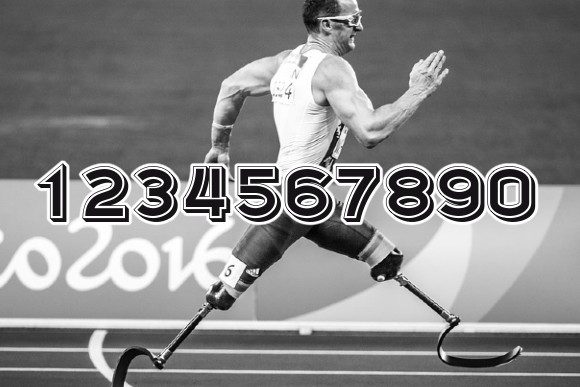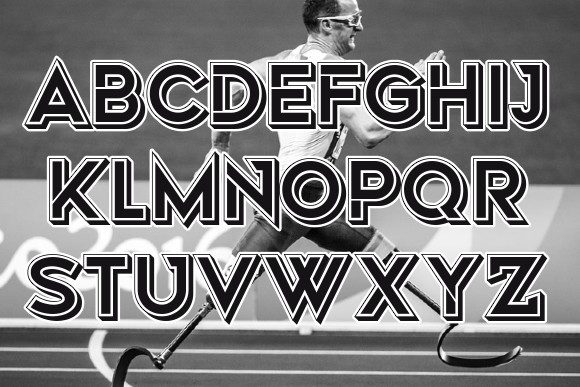
Introduction to Sakat Font
Have you ever found yourself in a creative flow, typing away at your computer with a burst of inspiration, only to realize that the perfect font to match your vision is nowhere to be found? This is a familiar struggle for many designers, and it’s exactly why discovering a valuable design resource like the Sakat Font can be a game-changer.
The Sakat Font is a stunning display font that exudes power and speed, making it an ideal choice for designs that require a bold and dynamic touch. With its cool, thick lettering, this font is sure to grab attention and elevate your creative project to the next level.
Key Features of Sakat Font
- Supports transparent background, making it ideal for use in graphic design, digital art, and other visual projects.
- Features a unique, modern design with a distinctive style, making it perfect for projects that require a touch of elegance.
- Can be easily customized and edited using font editing software, making it a valuable resource for designers and artists.
Honest Review: Sakat Font
I recently had the chance to work with the Sakat Font, a popular design resource for creative projects. Overall, I was impressed with its high quality and versatility. ✨ The font is highly customizable, making it an excellent choice for designers who want to add a unique touch to their designs.
- High-quality design: The Sakat Font is a beautifully crafted font that is perfect for a variety of creative projects, from logos to typography-based designs.
- Transparent background: The font’s transparent background makes it easy to use it over different backgrounds, giving you more design freedom.
However, there are a few limitations to consider. ⚠️ The font is only available in a limited range of styles, which may not be suitable for every project. Additionally, the font’s weight can sometimes be inconsistent, which may affect the overall design.
Overall, I was impressed with the Sakat Font’s potential and would definitely recommend it to designers who are looking for a high-quality, free design resource. With a little creativity and patience, the Sakat Font can be a valuable addition to any design project.
Tips for Getting the Most Out of Sakat Font
Use the Sakat Font with a transparent background to create a subtle, high-quality design. Experiment with different font sizes and styles to achieve the desired effect. Combine the Sakat Font with other design elements to create a visually appealing creative project.
The Sakat Font is ideal for use in creative projects, such as logos, brochures, and business cards. It is also suitable for use in presentations, documents, and social media graphics. The Sakat Font’s high-quality design makes it a great choice for designers and non-designers alike.